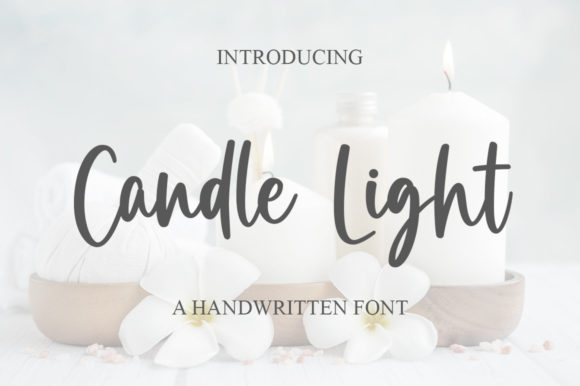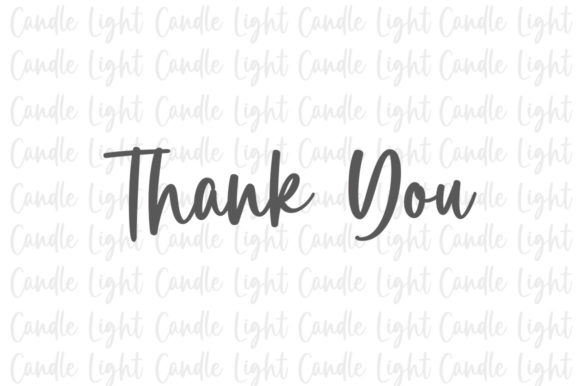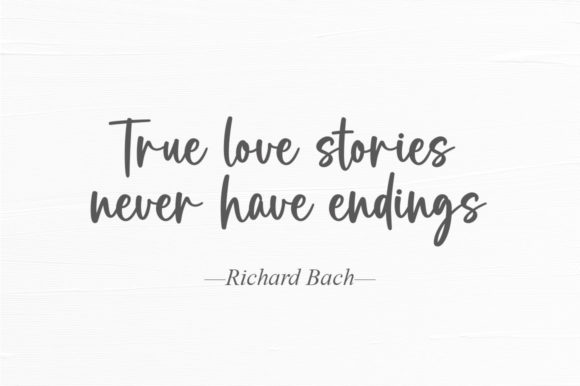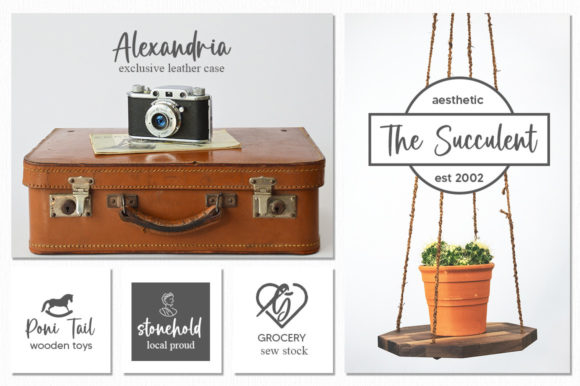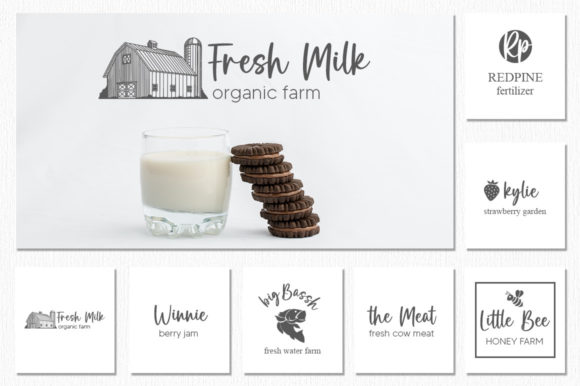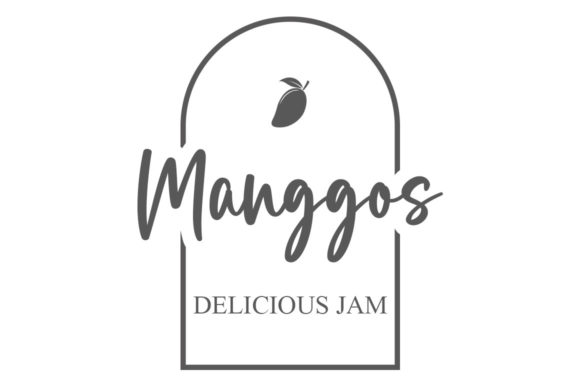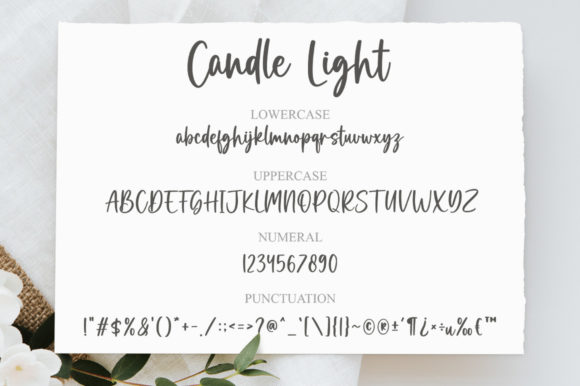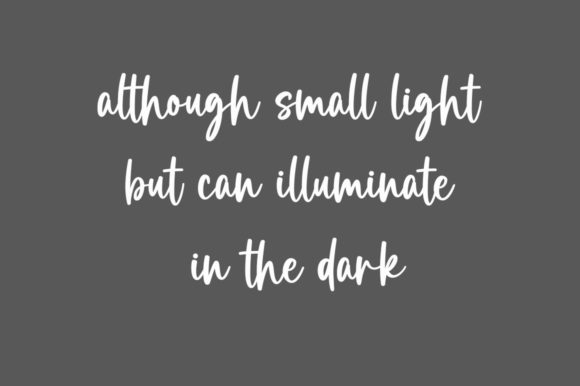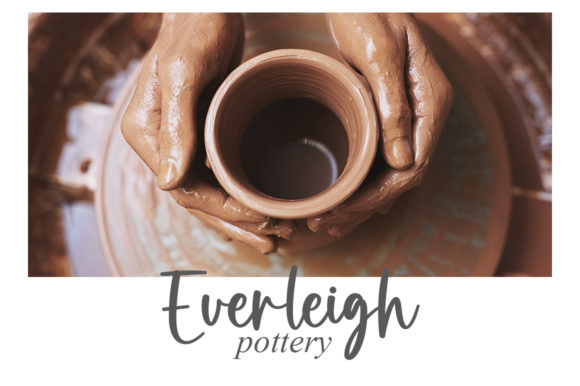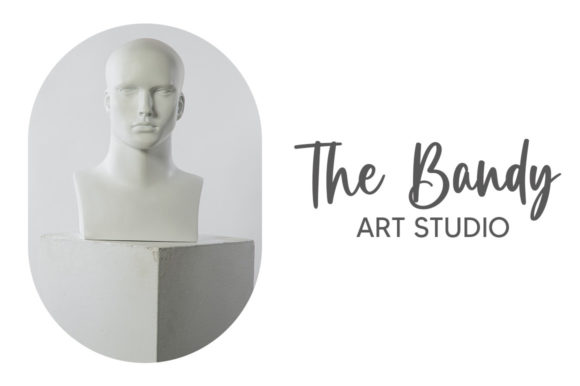
Candle Light Font
Candle Light is a beautiful, lovely script font. Fall in love with its well balanced and incredibly versatile style, and use it to create spectacular designs!